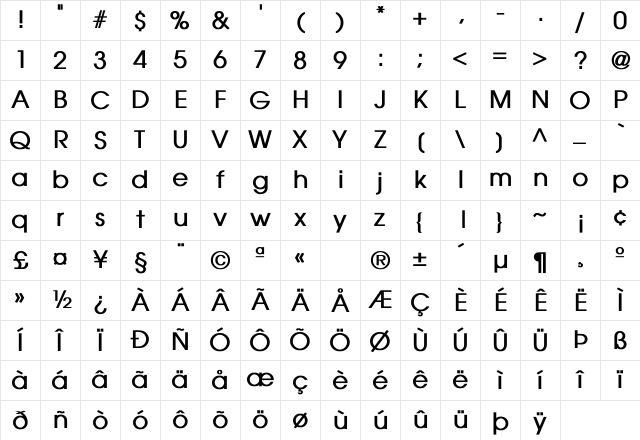
AvantGarde-Book Bold Bold
Design Context for AvantGarde-Book Bold
AvantGarde-Book Bold is a composed and adaptable typeface that performs quietly and consistently across a wide range of design contexts. Its bold stroke weight gives it real presence on the page.